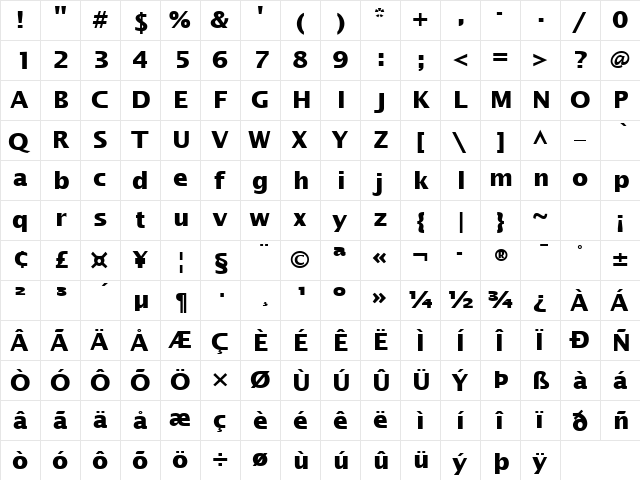
LucidaSans-Bold Regular
Design Context for LucidaSans-Bold Typeface
LucidaSans-Bold offers clean, dependable letterforms without strong stylistic allegiance, making it a practical choice for designers who need flexibility. The heavy weight commands attention and anchors typographic hierarchies.
Pro Tip: Use LucidaSans-Bold in both headline and body roles to test its range before committing to a single application.